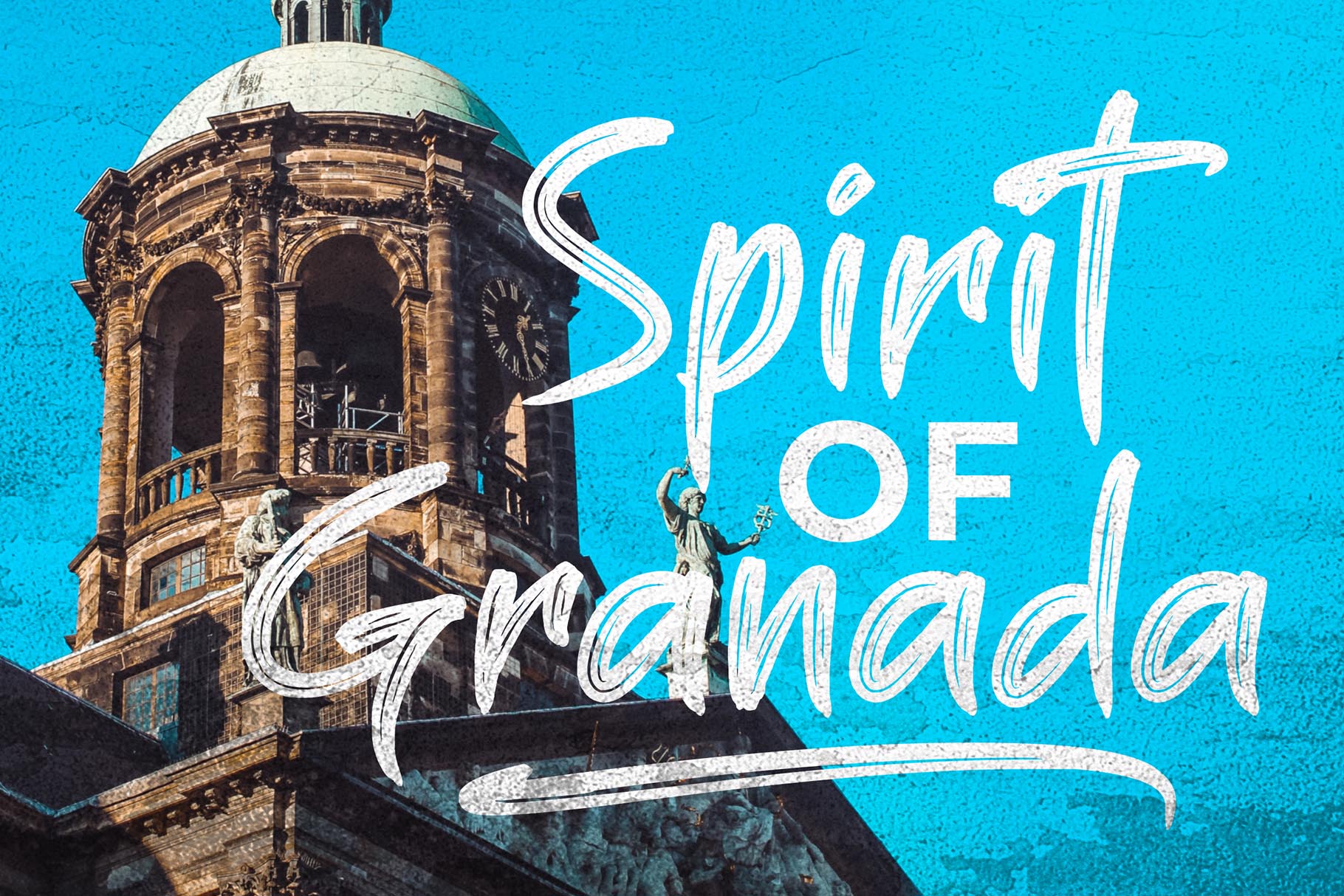
Introducing Great Bergamo!
Great Bergamo is strong hand-drawn brush font that combines attractive curves with a fresh urban edge; delivering a stylish brush font which is guaranteed to add an eye-catching appeal to your logo designs, brand imagery, handwritten quotes, product packaging, merchandise, social media post, or website font.
- Numerals and Punctuation (OpenType Standard)
- Accents (Multilingual characters)